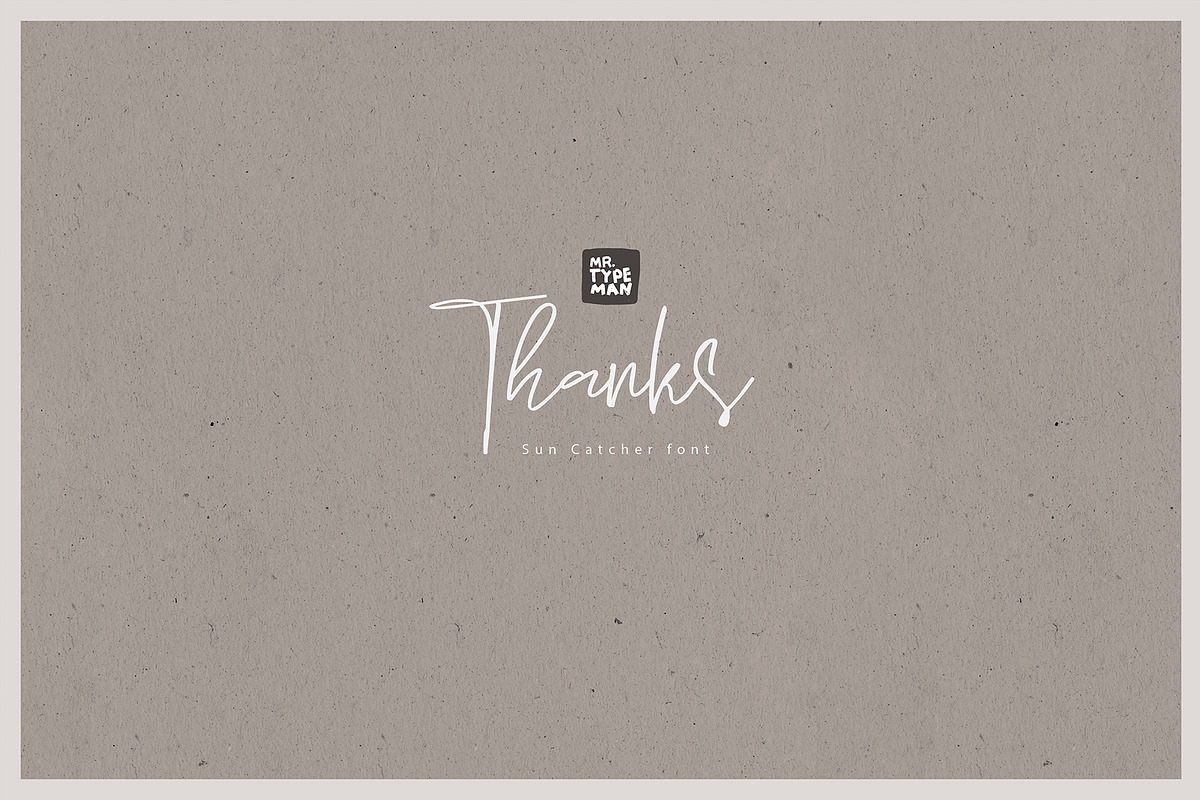
Sun Catcher Handwritten Script
Introducing my new font Sun Catcher with its pleasant and elegant style. If you want to add a certain charm, appeal and allure in your projects, Sun Catcher is just what you need. Sun Catcher comes with uppercase, lowercase, standard punctuation and special letters for most of the European languages.